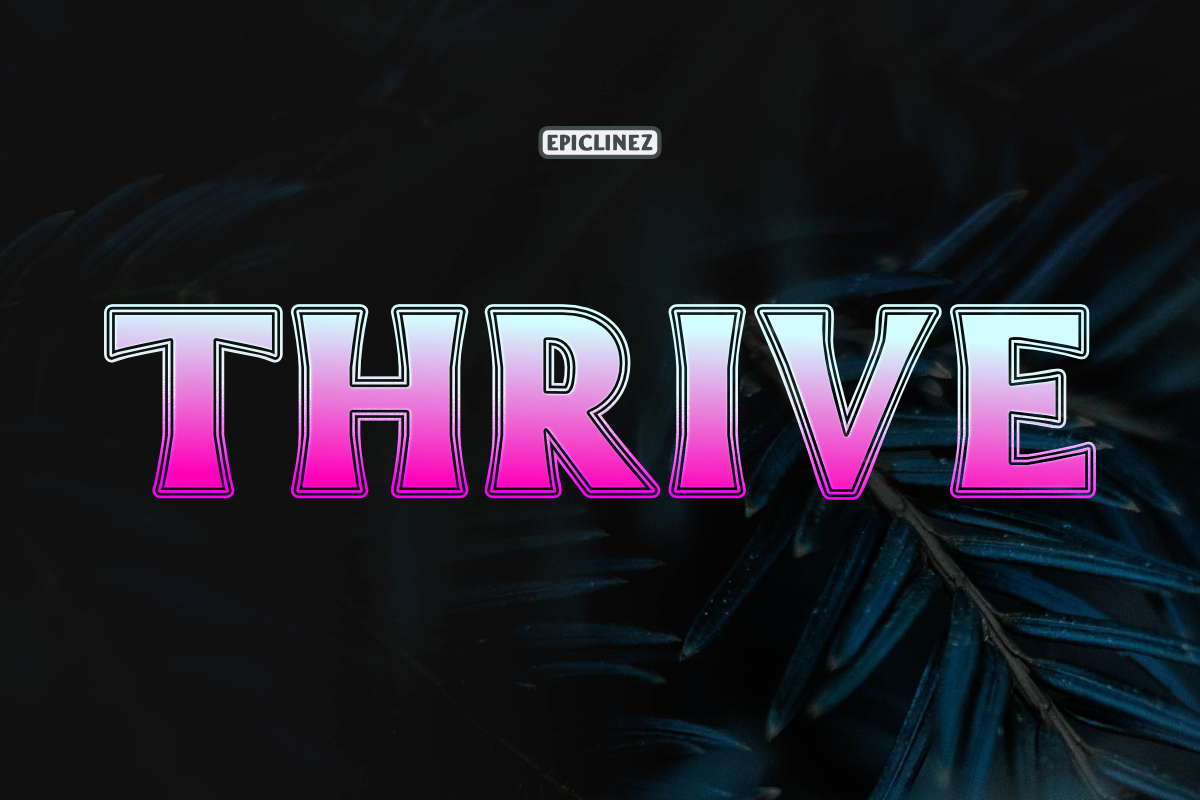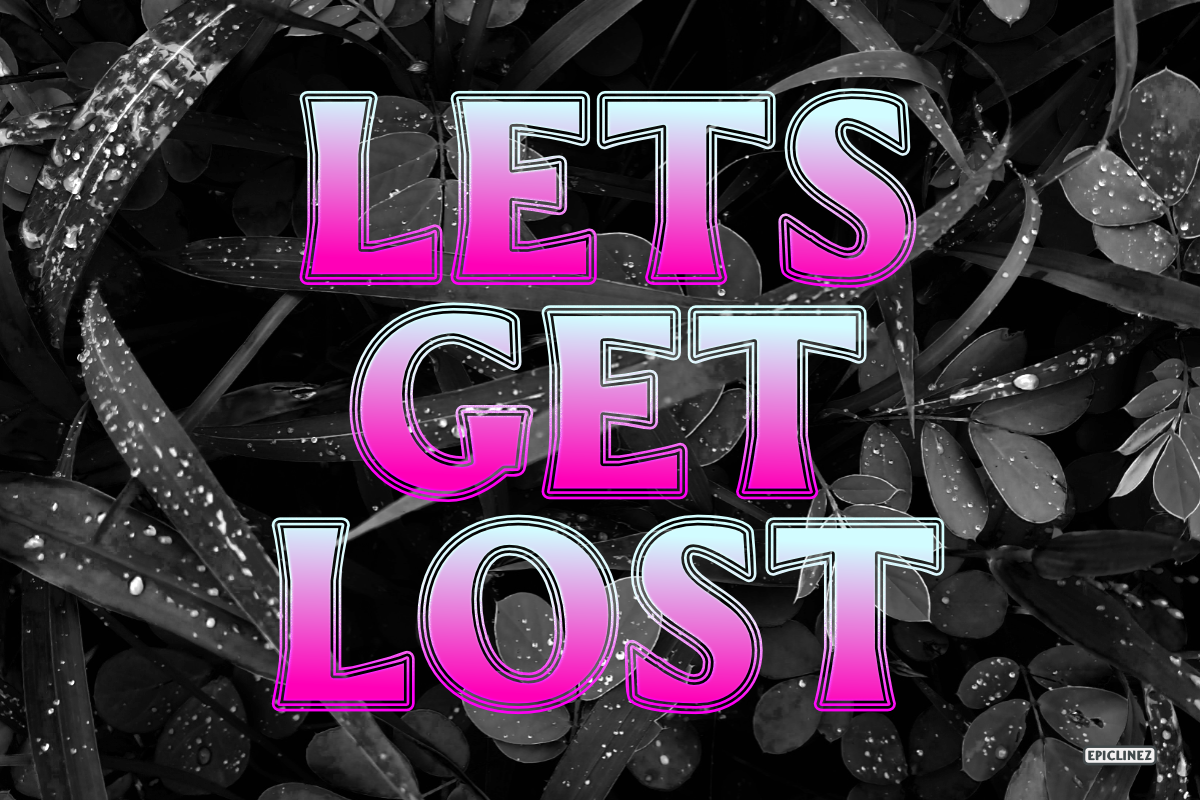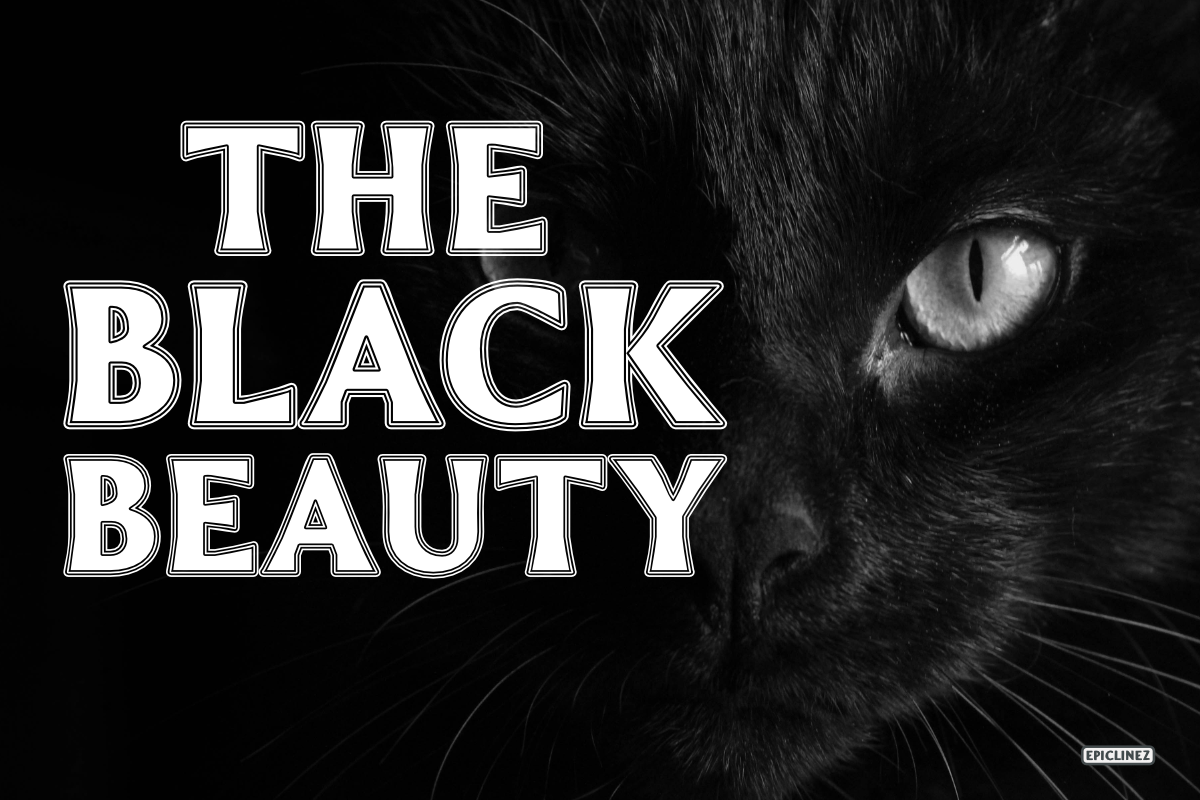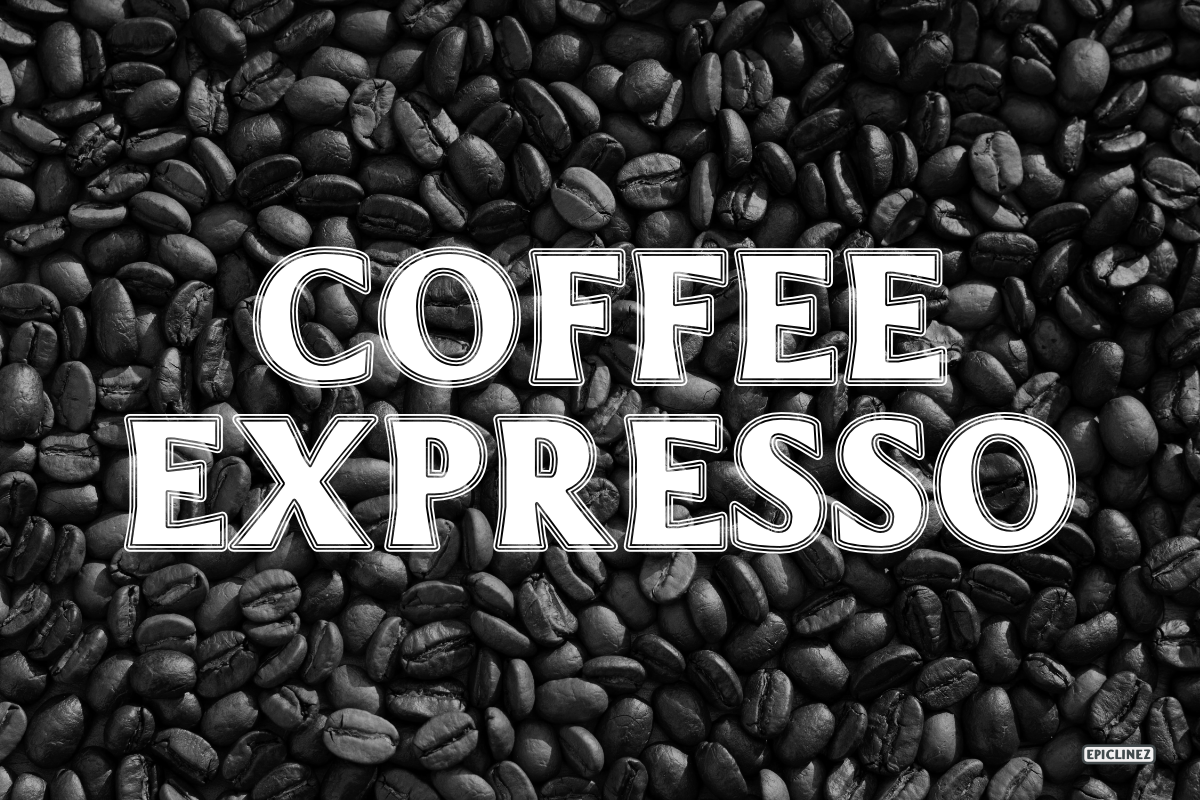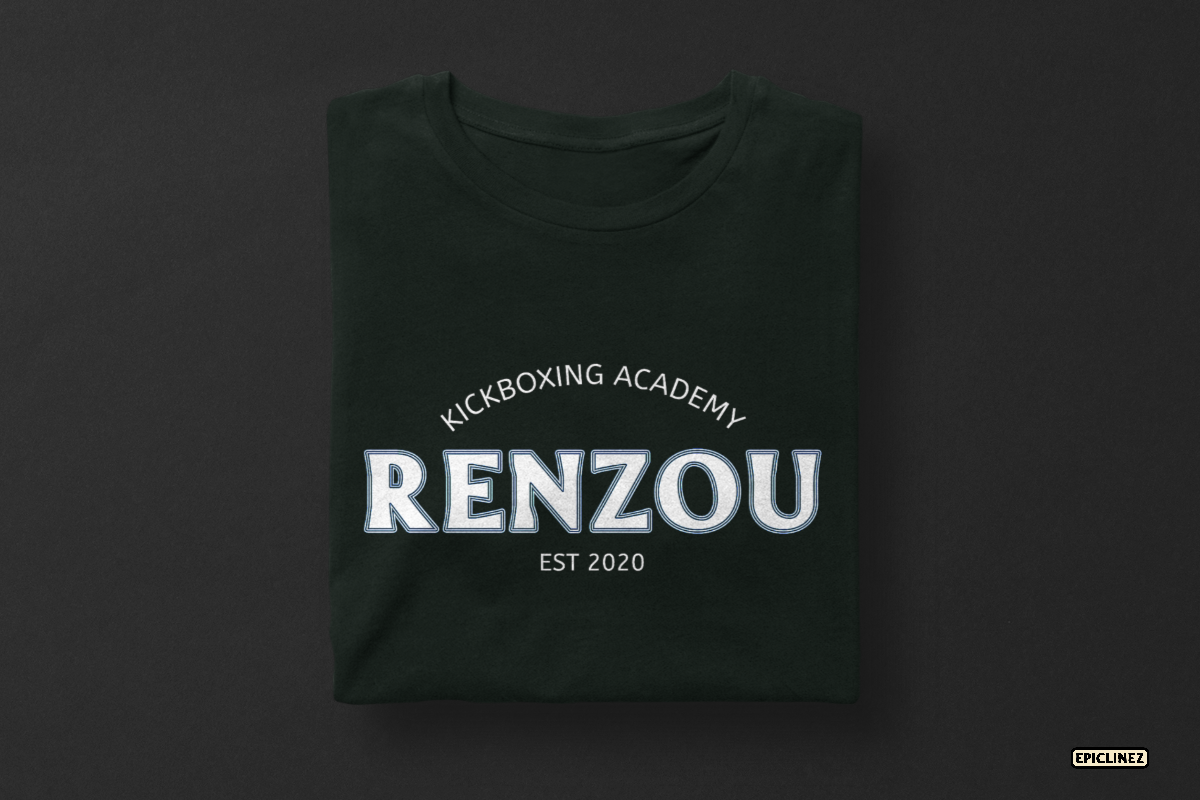
Thrive | Modern Display Typeface
Thrive is a modern display font with a sporty and adventurous feel to it. This all caps font can give a powerful touch to your unique designs. It is suitable for logos, headlines, movie posters, and even quotes.
- Basic Latin A-Z, a-z, numbers, symbols, and punctuations
- Thrive is supporting 16 Languages: Afrikaans Albanian Catalan Danish Dutch English Estonian Finnish French German Italian Norwegian Portuguese Spanish Swedish Zulu.